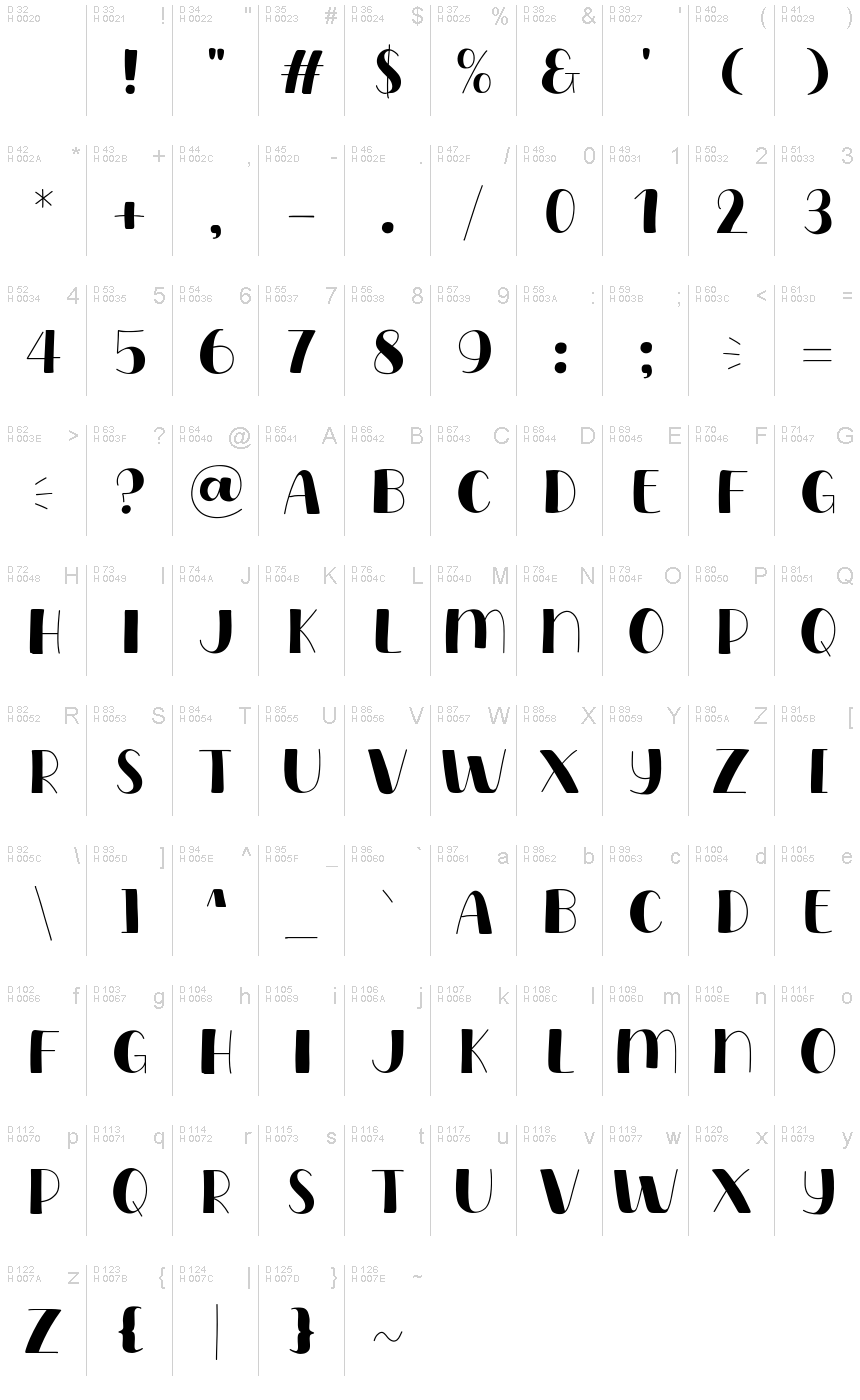
Dogname
Dogname, designed by Khurasan, bursts with a playful cartoon style that brings an element of fun and whimsy to any project. Its bold presence creates a friendly and approachable vibe, making it an ideal choice for designs that aim to be lighthearted and engaging. This display font's exaggerated curves and bouncy letters evoke the joyous energy of animated stories.
Perfect for children's books, party invitations, or any creative work needing a touch of cheerfulness, Dogname adds personality to logos, headlines, and packaging. Let this font infuse your design with its lively spirit and make your message stand out with charm.